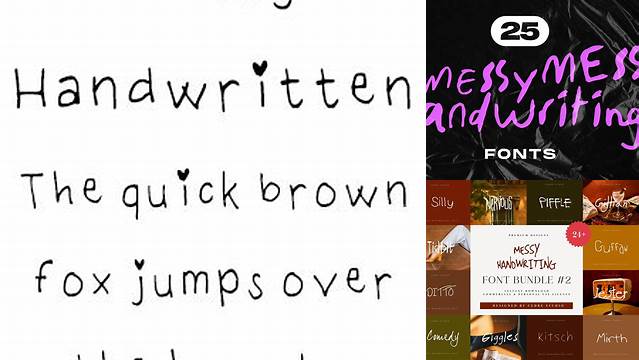
Messy Handwriting Fonts: Free Download For Creative Projects
Hey guys! Are you looking to add a personal, handwritten touch to your designs? Nothing beats the charm of messy handwriting fonts. They bring a raw, authentic feel that perfectly complements a variety of projects. Whether you're designing invitations, crafting social media graphics, or even working on branding materials, these fonts can add a unique flair. In this article, we'll dive deep into the world of messy handwriting fonts, exploring everything from where to find them for free to how to use them effectively. Let's get started!
1. What are Messy Handwriting Fonts?
So, what exactly are messy handwriting fonts? Well, they're digital typefaces designed to mimic the look of actual human handwriting – imperfections, quirks, and all. Unlike clean, uniform fonts, messy handwriting fonts embrace the natural inconsistencies of handwriting, making them appear more personal and approachable. These fonts often feature varying stroke widths, irregular letterforms, and sometimes even slight smudges or uneven baselines, all contributing to their authentic feel. They're perfect for projects where you want to convey a sense of warmth, informality, or even nostalgia. Think of using them for thank you notes, scrapbook layouts, or even website headers to create a friendly, inviting atmosphere.
Understanding the Appeal of Messy Fonts
The appeal of messy handwriting fonts lies in their ability to connect with an audience on a more emotional level. In a world saturated with perfectly polished, digital designs, a touch of human imperfection can be incredibly refreshing. These fonts evoke a sense of authenticity and can make your message feel more genuine and relatable. They can also help to break the monotony of traditional typography and add visual interest to your designs. For instance, imagine using a messy handwriting font for the headings of a blog post – it instantly gives the content a more personal, approachable vibe, encouraging readers to engage further. The imperfections inherent in these fonts make them stand out, adding character and charm that's hard to replicate with standard typefaces. Think of it as the digital equivalent of a handwritten note – it carries a certain weight and intimacy that typed text often lacks.
Types of Messy Handwriting Fonts
There's a wide range of messy handwriting fonts out there, each with its own unique personality and style. Some mimic a playful, childlike scrawl, while others resemble elegant, cursive script with a touch of disarray. You might find fonts that are bold and assertive, perfect for headlines, or delicate and whimsical, ideal for body text or captions. Some fonts even include ligatures and alternate characters, allowing you to customize the look and feel of your text even further. For example, a font with varying letter heights and angles can create a particularly dynamic and realistic handwritten effect. Others might incorporate subtle textures or ink splatters to enhance the authenticity. The key is to choose a font that matches the tone and message of your project. A playful, messy font might be perfect for a children's book, while a slightly more refined, yet still imperfect, script might be better suited for wedding invitations or branding materials.
Independent Font Designers
Don't forget to explore the world of independent font designers when searching for messy handwriting fonts. Many talented typographers offer free fonts on their personal websites or through online communities like Behance and Dribbble. These platforms are fantastic for discovering unique and less mainstream fonts that you might not find on larger font websites. When you find a font you love from an independent designer, it's always a good idea to check their licensing terms carefully. Some designers offer their fonts for free in exchange for attribution, meaning you'll need to credit them when you use the font in your projects. Others may offer different tiers of licenses, with options for personal and commercial use. Supporting independent designers is a great way to contribute to the creative community and ensure the continued development of high-quality fonts. You can often find contact information on their websites or profiles, allowing you to reach out with any questions or feedback. Building a relationship with independent font designers can also open doors to future collaborations or exclusive font releases. So, take the time to explore these platforms and discover the hidden gems they have to offer – you might just find your new favorite messy handwriting font!
3. How to Choose the Right Messy Handwriting Font
Choosing the right messy handwriting font can make or break your design. It's not just about finding a font that looks aesthetically pleasing; it's about selecting one that aligns with the message you're trying to convey and the overall tone of your project. Think of the font as a voice – does it sound friendly, professional, playful, or something else entirely? The key is to consider the context in which the font will be used and choose one that complements the content and target audience. Let's dive into the factors that you should consider when making your font selection.
Consider the Project's Tone
The tone of your project is a crucial factor in choosing the right messy handwriting font. Is it a lighthearted invitation, a heartfelt thank-you note, or a serious business proposal? The font should reflect the mood and atmosphere you want to create. For instance, a playful, whimsical font might be perfect for a children's birthday invitation, while a more refined, yet still slightly imperfect, script might be better suited for a wedding announcement. Consider the emotions you want to evoke in your audience and choose a font that aligns with those feelings. If you're aiming for a casual and friendly vibe, a font with loose, flowing letterforms and irregular strokes might be ideal. On the other hand, if you need to convey a sense of elegance and sophistication, a font with a more controlled and graceful script could be a better choice. Don't be afraid to experiment with different fonts and see how they impact the overall feel of your design. You might even want to create several mockups using different font options to compare and contrast their effectiveness. Ultimately, the right messy handwriting font will enhance your message and help you connect with your audience on a deeper level.
7. Conclusion: The Power of Messy Handwriting Fonts
So, there you have it! We've explored the world of messy handwriting fonts, from what they are and where to find them for free, to how to choose the right one and use it effectively. These fonts have a unique power to add personality, warmth, and authenticity to your designs. Whether you're working on wedding invitations, social media graphics, or branding materials, a well-chosen messy handwriting font can elevate your project and help you connect with your audience on a deeper level. Remember to use these fonts sparingly, pair them with clean typefaces, and prioritize readability. With a little creativity and attention to detail, you can harness the power of messy handwriting fonts to create stunning and memorable designs. Happy font hunting, guys!